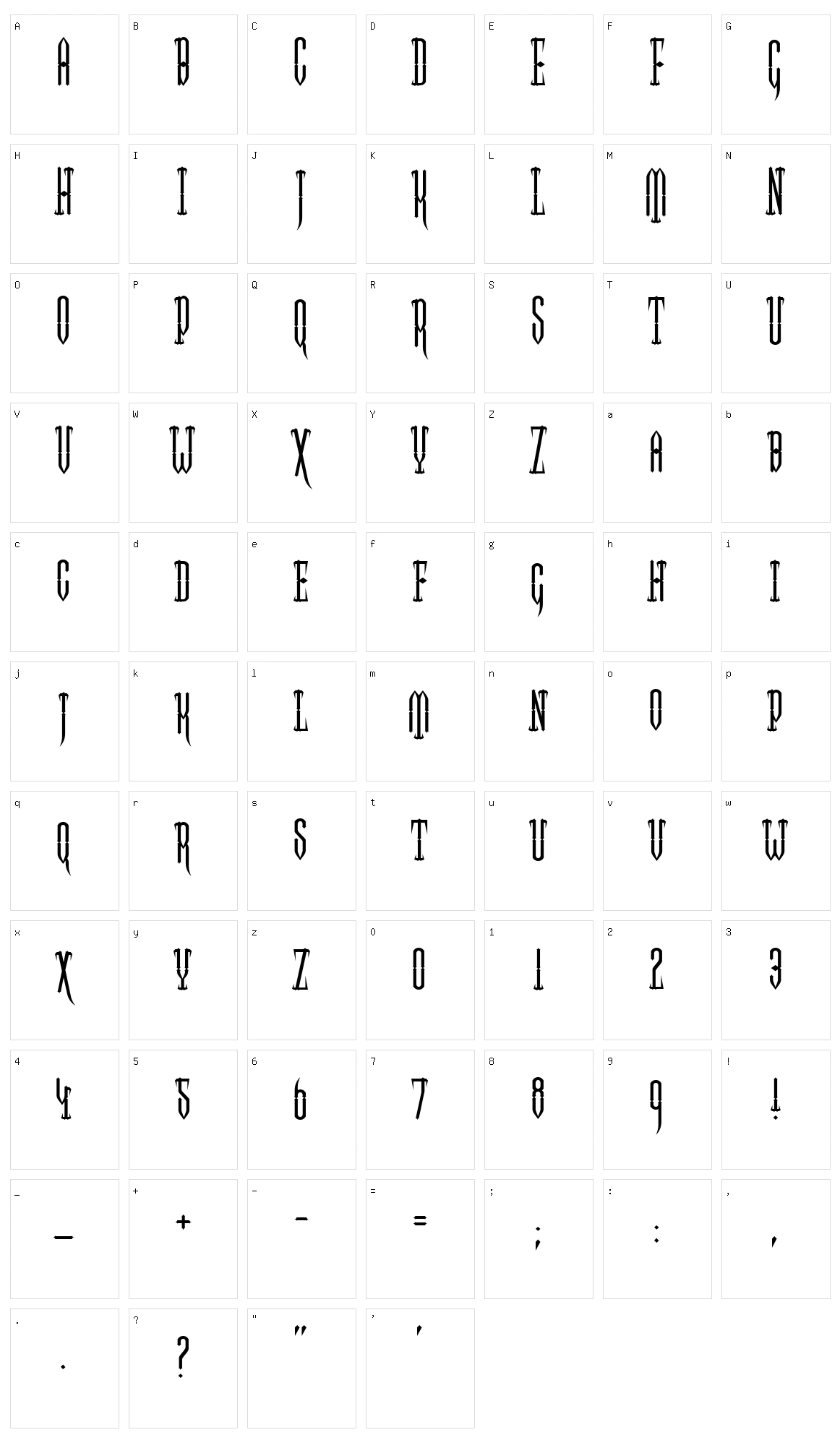
The free font Two Gun Johann is carefully designed by No Images Fonts, showcasing a thoughtful balance of creativity and usability and belongs to the Gothic font family. When you download the ZIP file, it contains only 9.99 KB of font files, making it lightweight and quick to download. Please review the license details below to understand permitted usage and distribution rights. If license information is not available, we recommend using this font for personal projects only or contacting the author directly for commercial usage permissions.